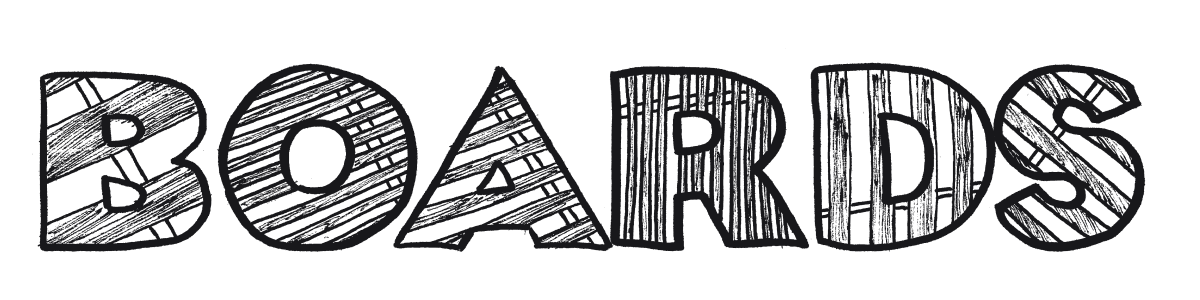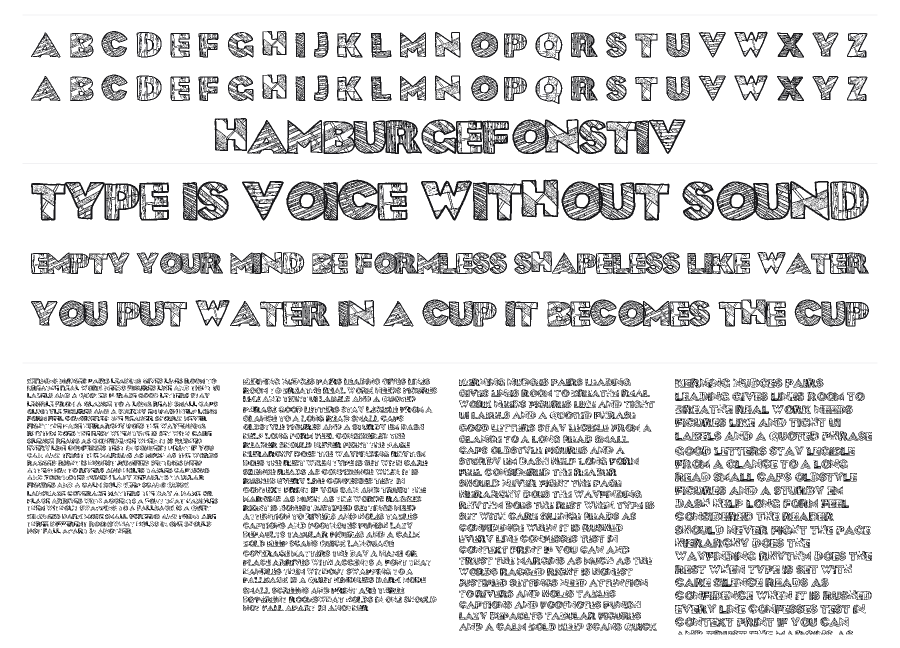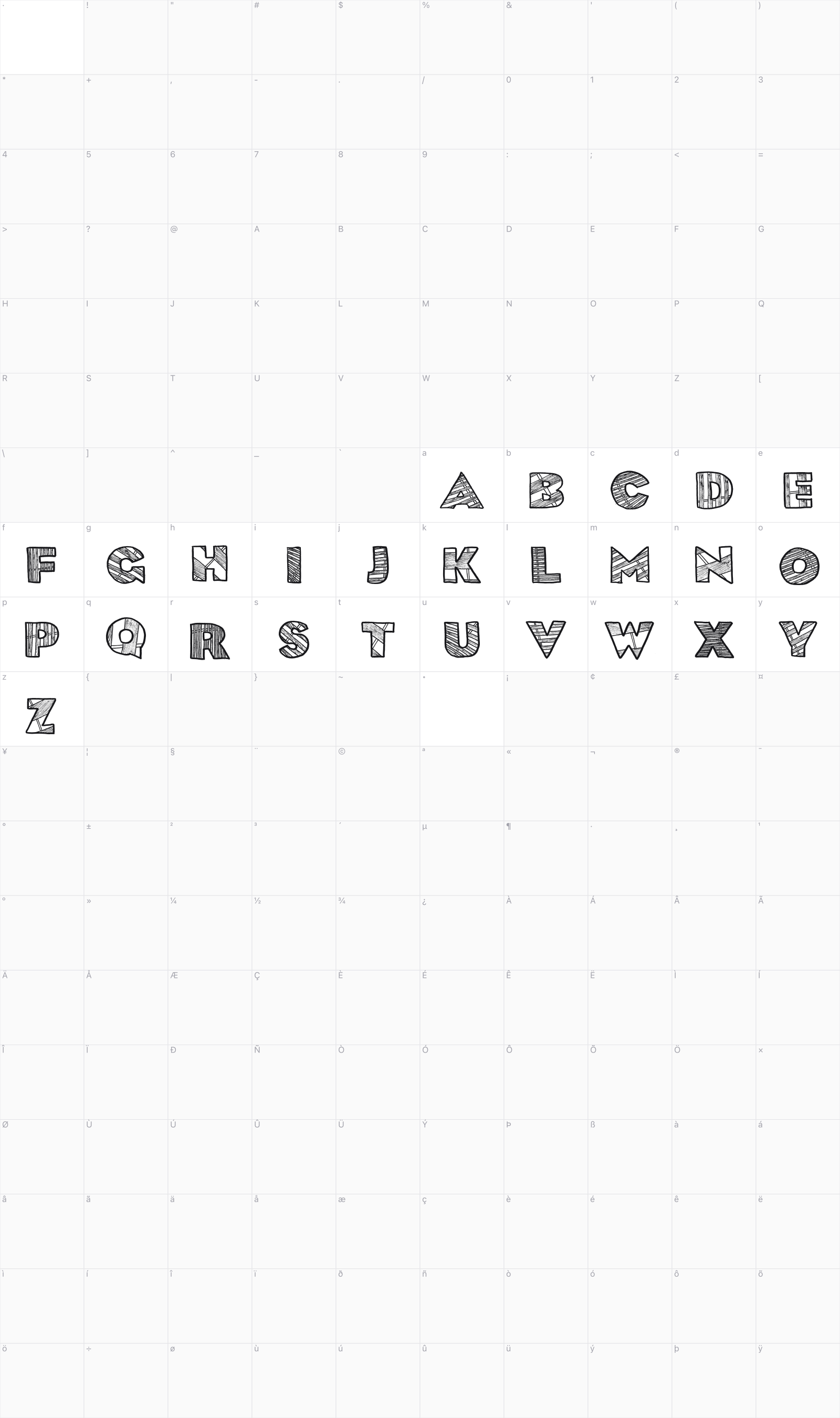
Boards
Boards is a bold display font whose chunky block letters are filled with frantic crosshatched pen scribbles, as if someone traced and re-traced every character with a ballpoint. The result is a heavy, tactile texture that reads instantly as handmade and youthful. It works best at large sizes where the hatching detail can breathe.